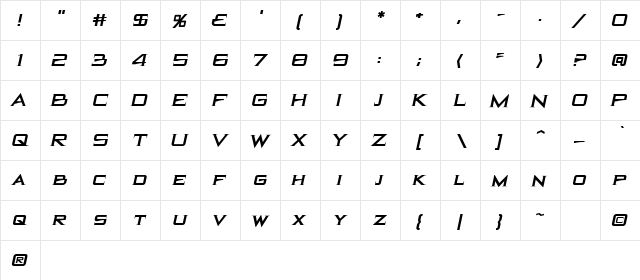
BlackHole BB Italic
Design Context for BlackHole BB Typeface
BlackHole BB is a composed and adaptable typeface that performs quietly and consistently across a wide range of design contexts. Its italic angle brings a sense of urgency and motion to the letterforms.
Pro Tip: Try BlackHole BB for annotation and caption copy alongside an upright companion — the contrast in angle creates a dynamic but ordered typographic system.